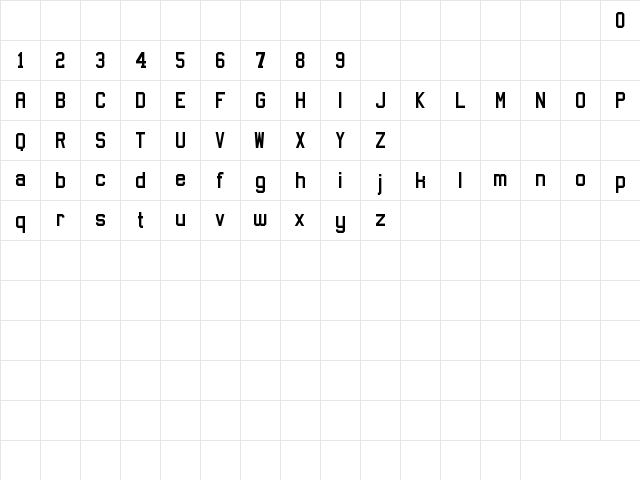
Sports Jersey Regular
Design Context for Sports Jersey Typeface
Sports Jersey has the bold swagger of sports branding: strong, assertive letterforms designed to dominate headlines and jerseys alike.
Built for sports team identities, athletic apparel, event posters, and high-energy promotional material.
Font Pairing: Use alongside a condensed or geometric sans for supporting copy — keep the pairing bold, functional, and free of ornament.
Pro Tip: Sports Jersey thrives on contrast — try it large, bold, and tight against a clean background for maximum visual impact.